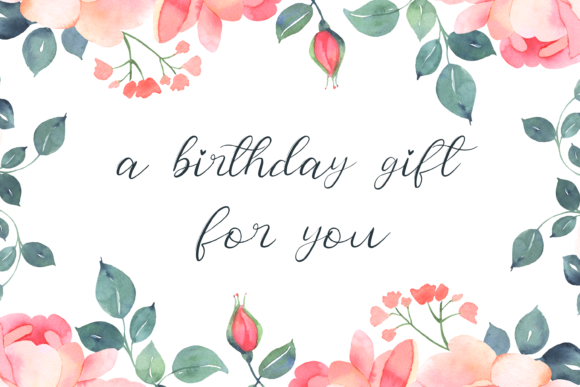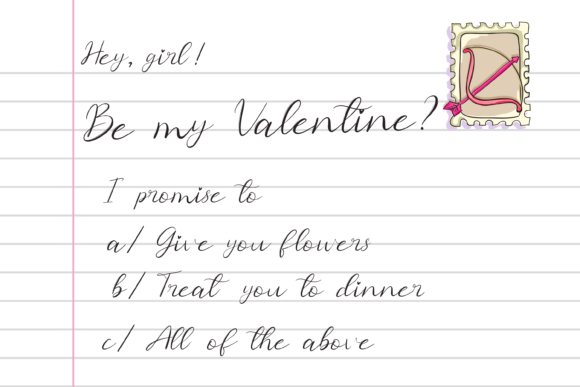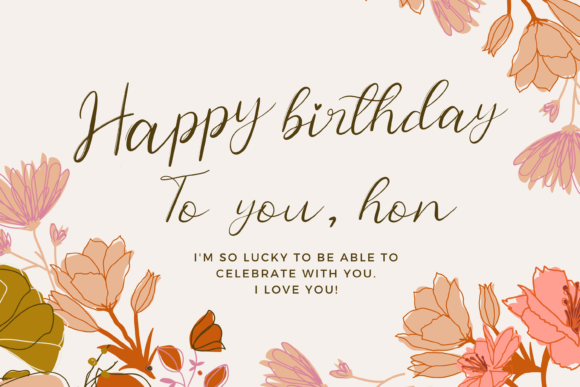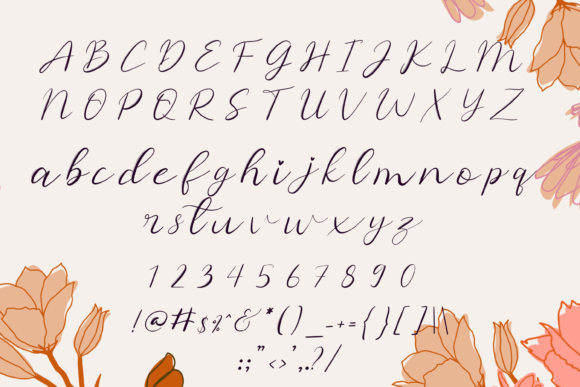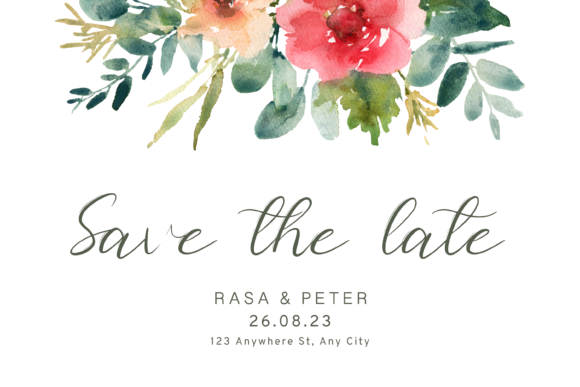
Blossom Ivy Font
About Blossom Ivy Font
Blossom Ivy is a lovely and timeless handwritten font. It is the best choice for creating eye catching logos, branding and quotes. Every letter has a unique and beautiful touch, which will make your design come alive!